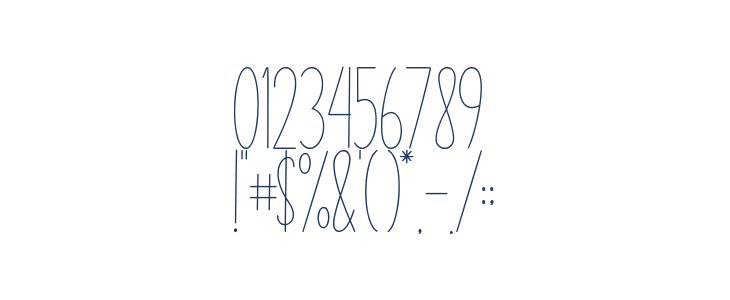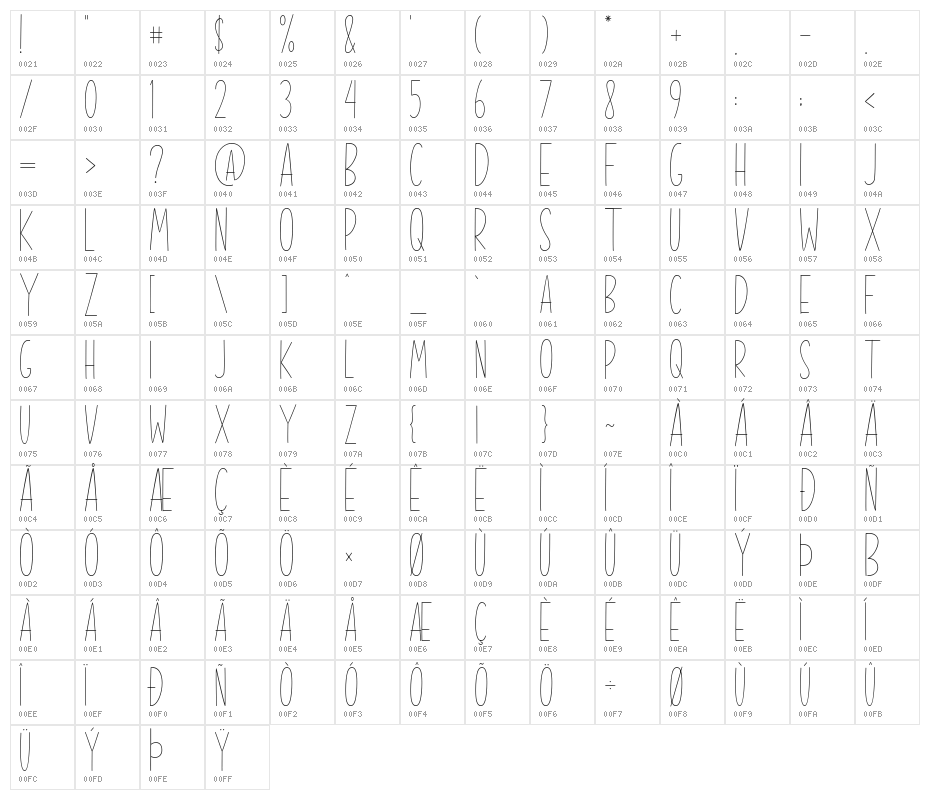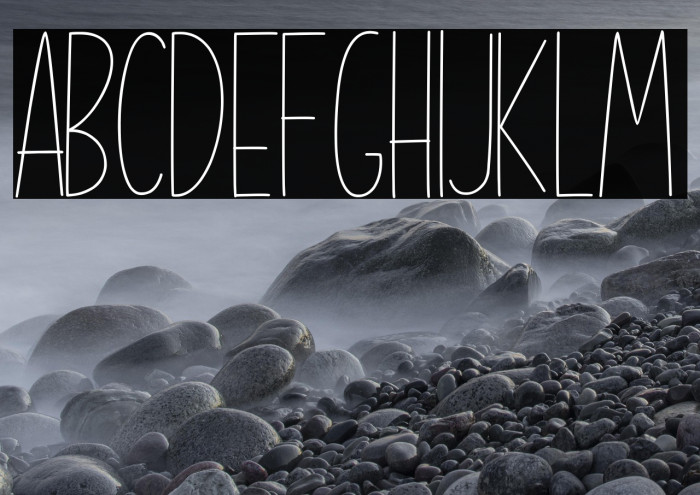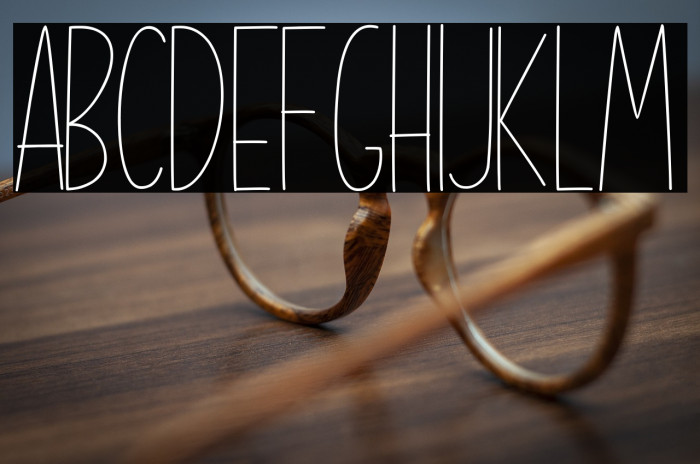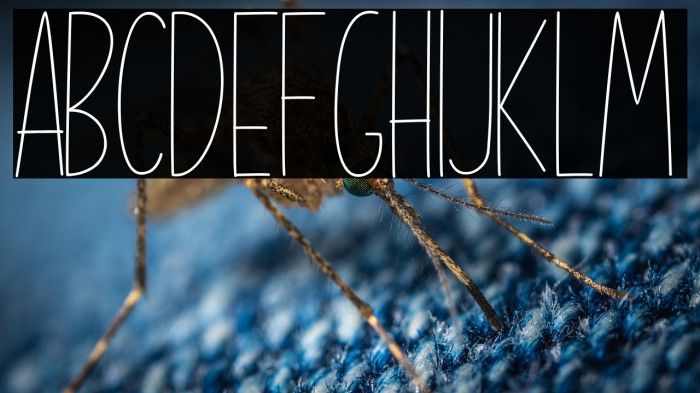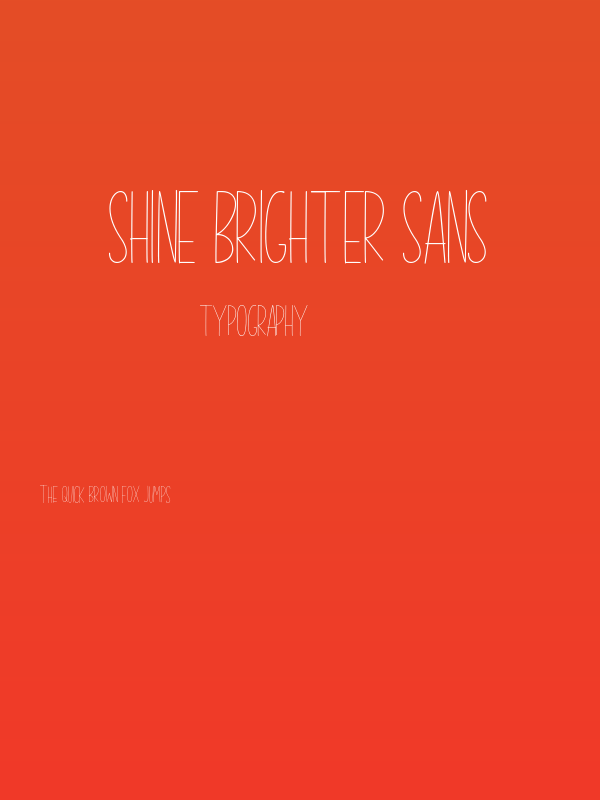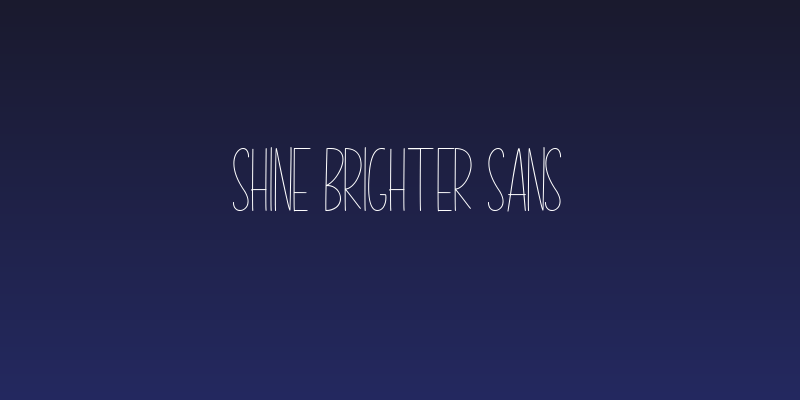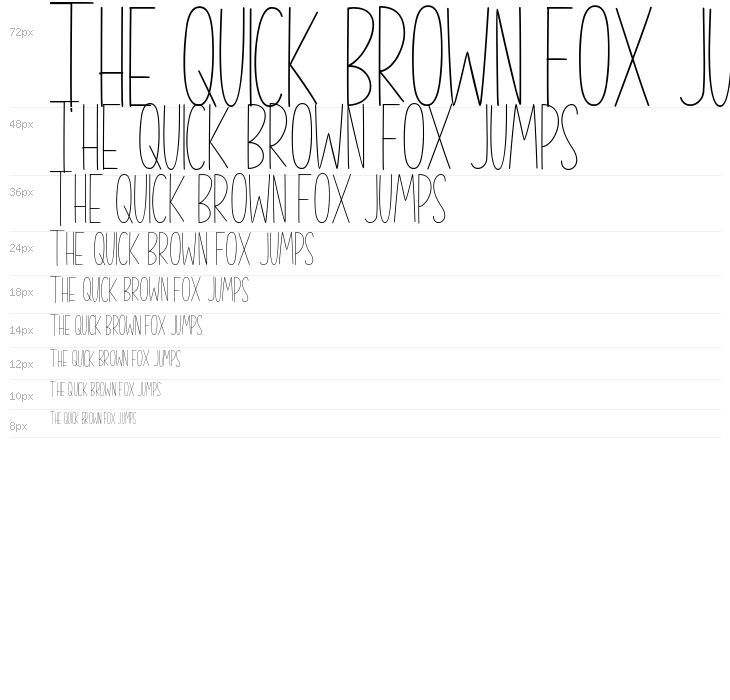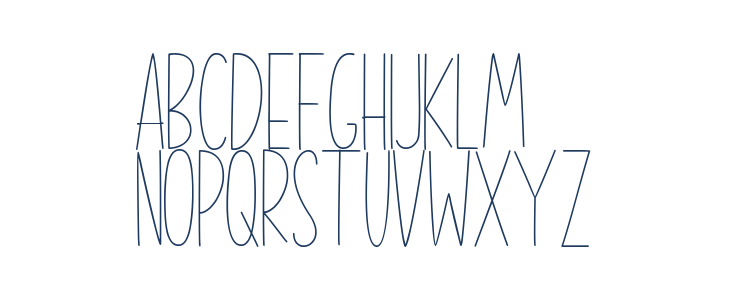
Shine Brighter Sans Font
Shine Brighter Sans Description
This font features an ultra-thin, elongated design with a modern and minimalist aesthetic. The characters are tall and narrow, giving a sleek and sophisticated appearance. The strokes are consistent in width, contributing to a clean and uniform look. The uppercase and lowercase letters maintain a similar height, enhancing the font's streamlined style. The numerals and special characters are designed to match the overall thin and elongated theme, ensuring visual harmony across all elements. This font is ideal for projects that require a contemporary and elegant touch.
| Proposed Projects | Ideal for fashion magazines, luxury branding, minimalist posters, and modern web design. |